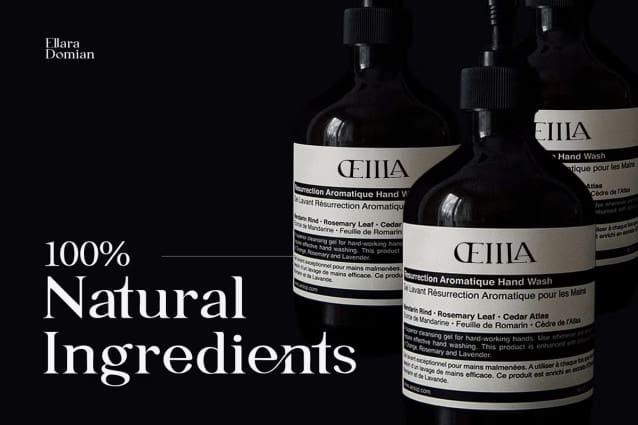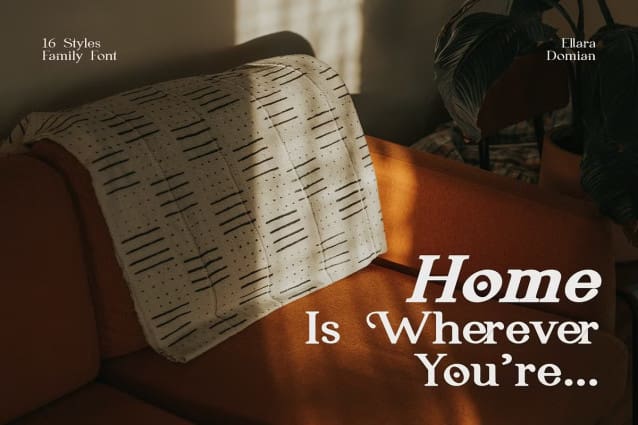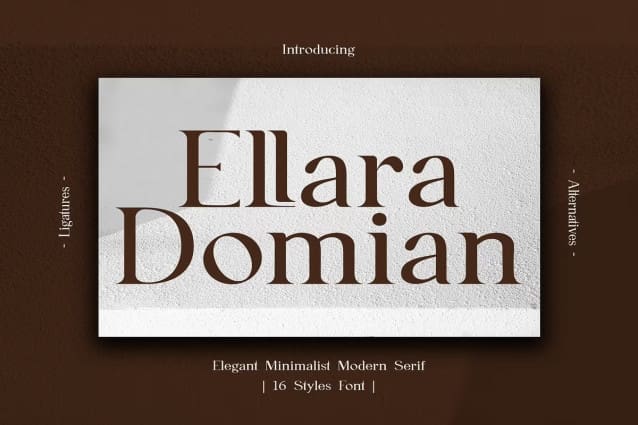
Ellara Domian Font Family
Ellara Domian Font Family is a captivating serif font that exudes a sense of refined elegance and minimalist beauty. Its clean lines and understated sophistication make it perfect for projects that require a touch of luxury and timeless appeal.